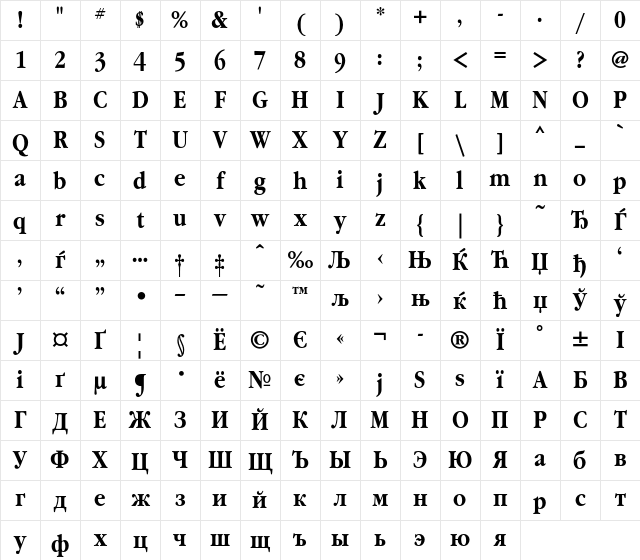
GaramondNarrowC Regular
Design Context for GaramondNarrowC
GaramondNarrowC is a composed and adaptable typeface that performs quietly and consistently across a wide range of design contexts. Its narrow stance lets it pack a punch even in space-constrained designs.